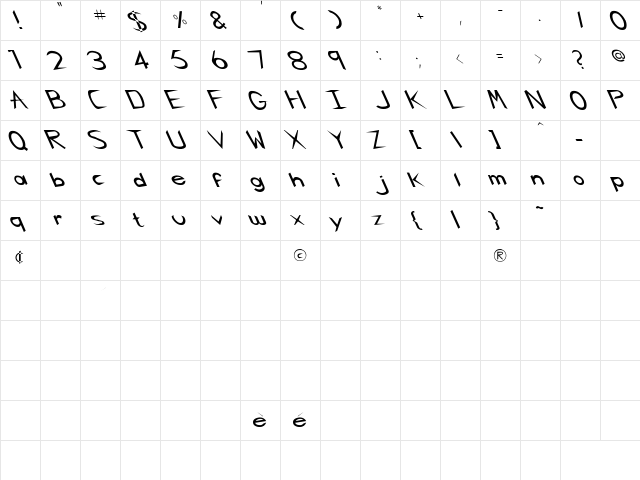
Charlie_ Chan Extreme Lefty Regular
Design Context for Charlie_ Chan Extreme Lefty Typeface
Charlie_ Chan Extreme Lefty offers clean, dependable letterforms without strong stylistic allegiance, making it a practical choice for designers who need flexibility.